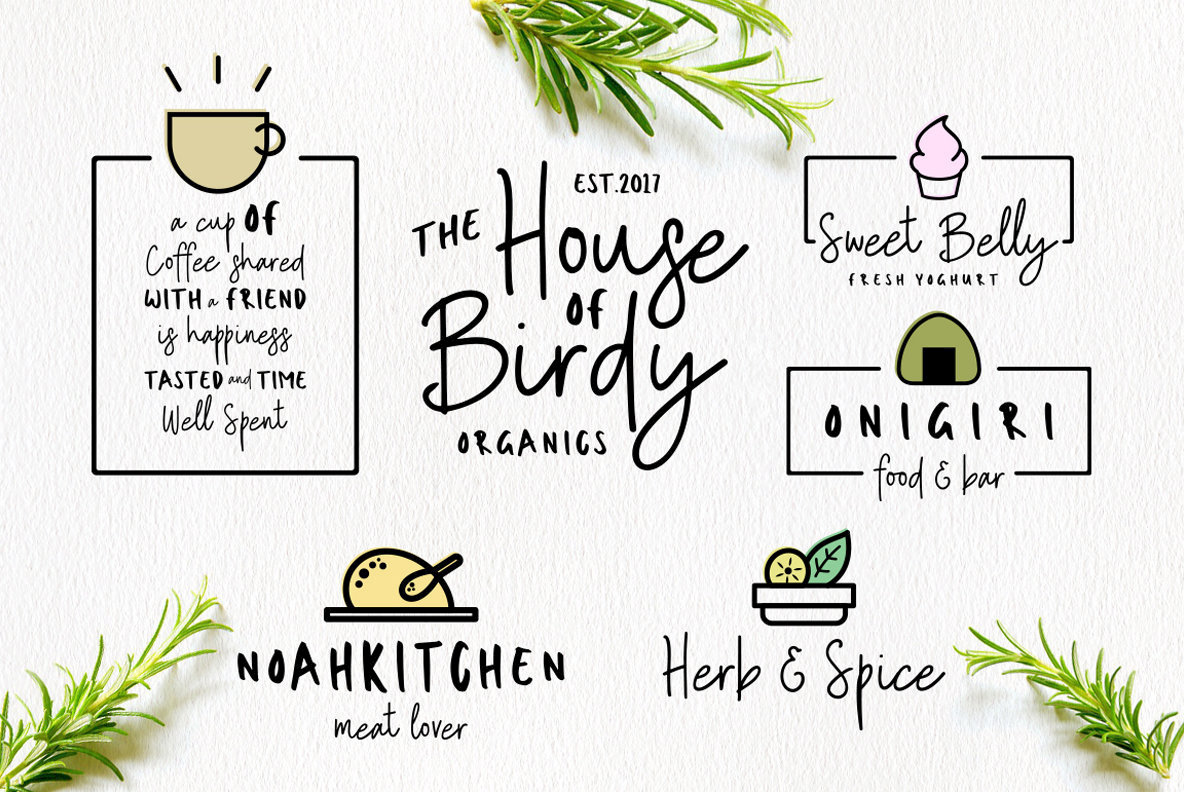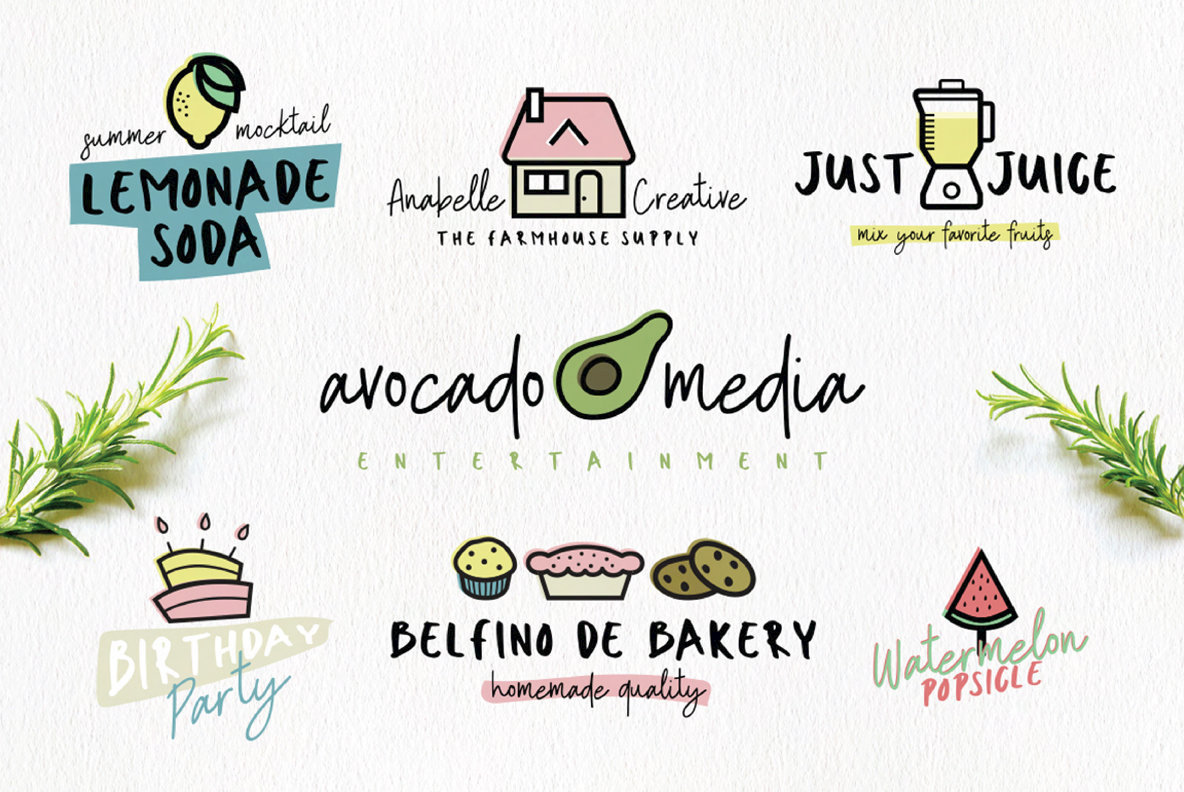
Sweet Belly Font
Sweet Belly Sans
Sweet Belly Script
Sweet Belly presents an enchanting blend of sans and script styles, crafted to infuse a sense of warmth in any design project. This dual-purpose font is ideal for those with a keen eye for aesthetics and is particularly suitable for bespoke logos, captivating magazine covers, and engaging stickers. Sweet Belly's distinct combination allows designers to effortlessly convey both playfulness and elegance, making it an invaluable asset for striking flyers, memorable cards, and versatile promotional materials.Sweet Belly: A Charming Font Duo